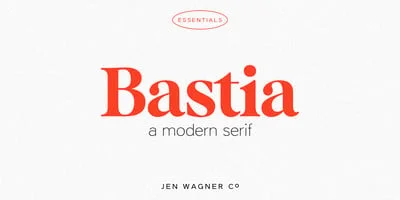
This Mediterranean typeface excels in coastal resort branding, Italian restaurant signage, Mediterranean cuisine packaging, travel agency materials, luxury yacht club logos, seaside boutique displays, coastal real estate marketing, and European heritage communications. Its coastal elegance makes it perfect for projects celebrating Mediterranean lifestyle and seaside sophistication.
Bastia Font generates excitement through its coastal sophistication that captures the timeless charm of Mediterranean harbors and seaside elegance. The font's flowing curves and nautical letterforms create an atmosphere of refined coastal living that resonates with audiences seeking luxury experiences and Mediterranean authenticity. Its carefully weathered character variations deliver harbor-fresh readability while maintaining distinctive maritime personality that reflects the enduring appeal of coastal culture and the sophisticated simplicity of Mediterranean design.
The Bastia Font family includes multiple coastal variations such as regular, light, bold, weathered, and nautical styles. Each family member maintains the distinctive Mediterranean aesthetic while offering different levels of seaside sophistication for various coastal applications. This maritime collection empowers designers to create elegant compositions that celebrate the full spectrum of coastal experiences from intimate harbor cafes to luxurious seaside resorts.
The Bastia Font offers designers access to premium Mediterranean typography that brings authentic coastal elegance to any project. Its sophisticated character and maritime appeal make it ideal for creating memorable seaside brands and engaging coastal communications that inspire wanderlust. Whether developing resort identities, designing Mediterranean restaurant materials, or crafting coastal marketing campaigns, this font provides the seaside sophistication and Mediterranean authenticity essential for projects targeting audiences who appreciate coastal living, seek luxury travel experiences, and embrace the timeless allure of Mediterranean culture and seaside elegance.